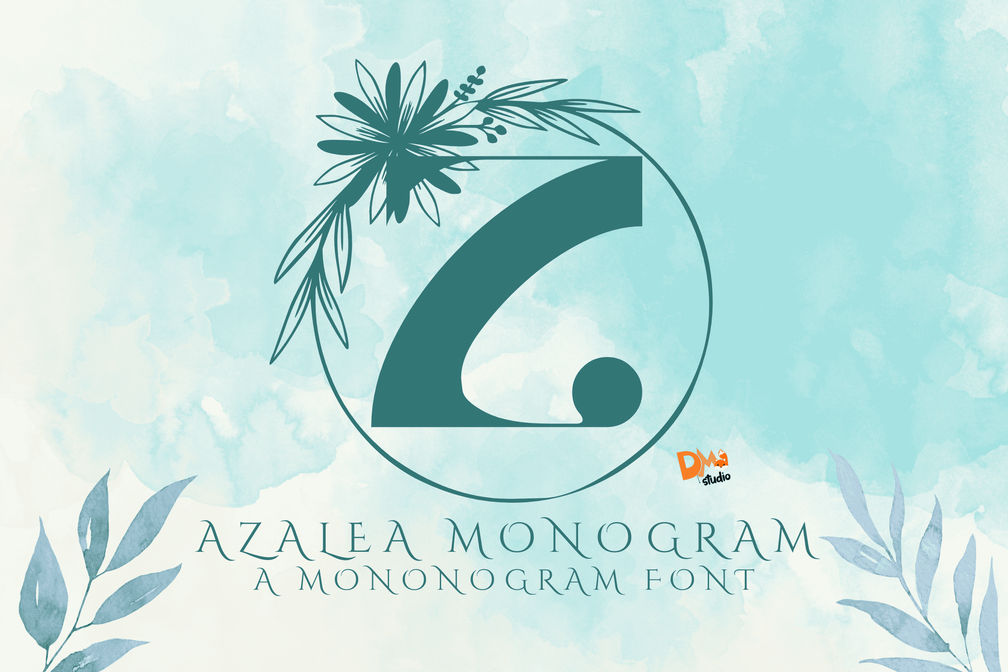
Azalea Monogram
Azalea Monogram – Elegant & Decorative Monogram Font
Azalea Monogram is a sophisticated and beautifully designed monogram font featuring intricate, ornamental details. Perfect for wedding invitations, luxury branding, personalized gifts, boutique packaging, and artistic designs, this font exudes elegance and refinement. Its timeless aesthetic adds a graceful and distinguished touch to any creative project.
• Elegant & Decorative Monogram Style: Intricately designed letters with a sophisticated flair.
• Perfect for Luxury & Wedding Designs: Ideal for invitations, branding, and personalized stationery.
• Timeless & Ornamental Aesthetic: Enhances projects with a refined and stylish look.